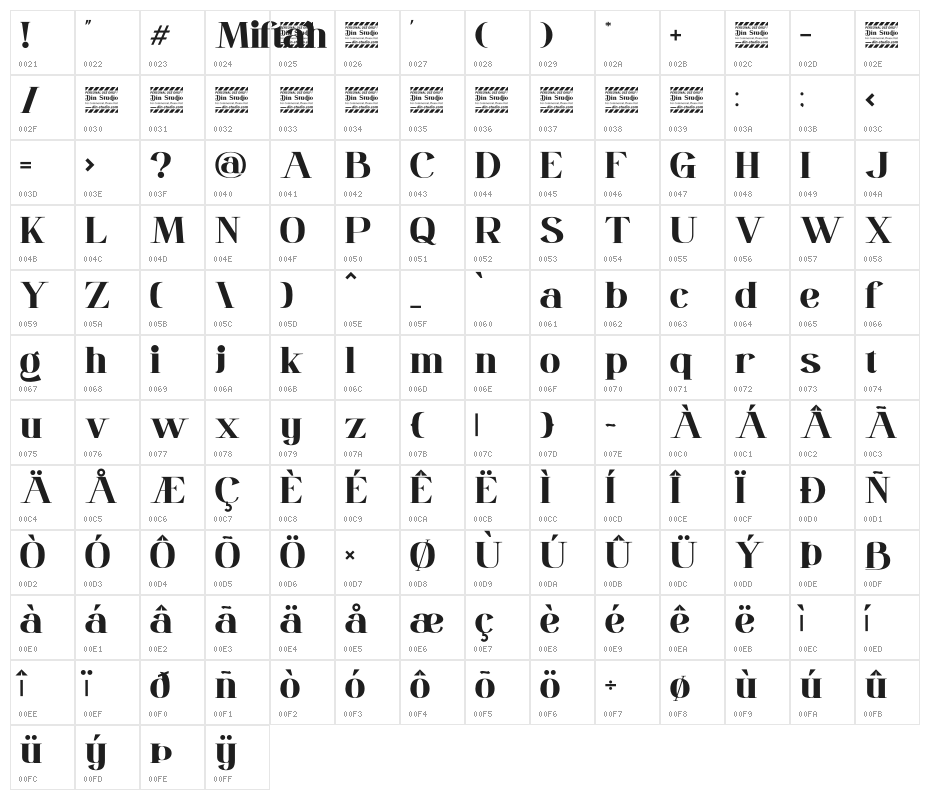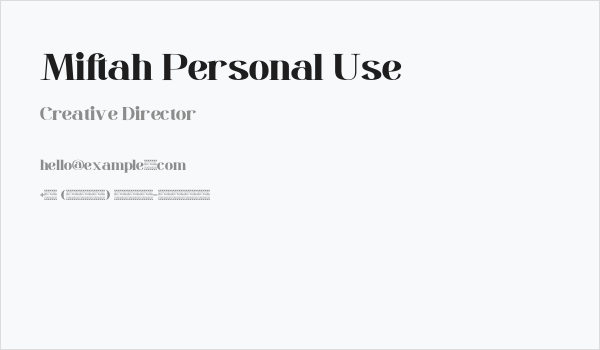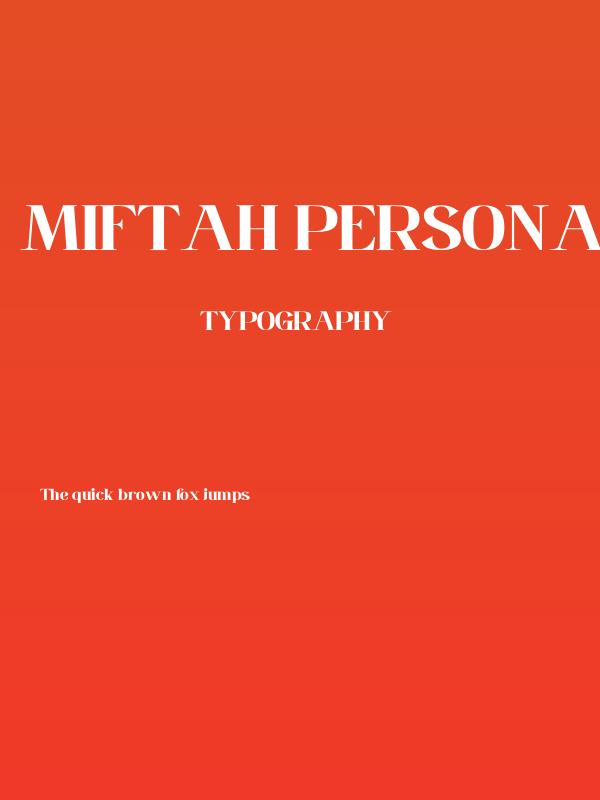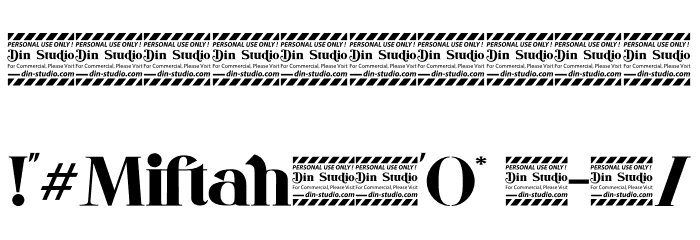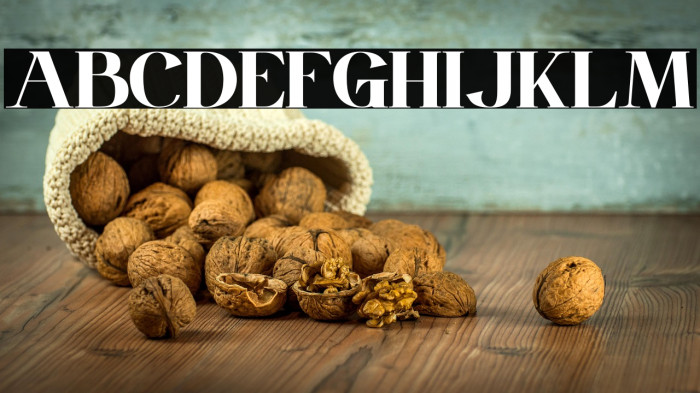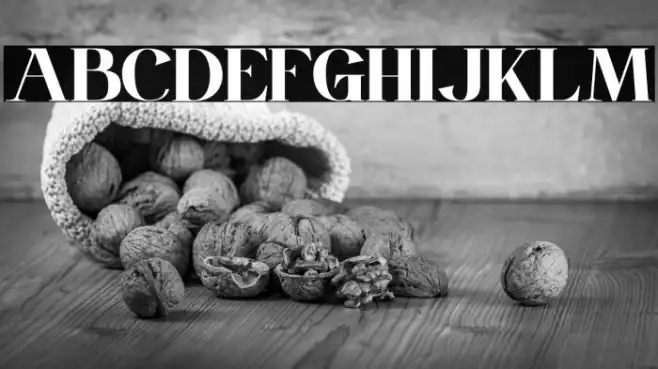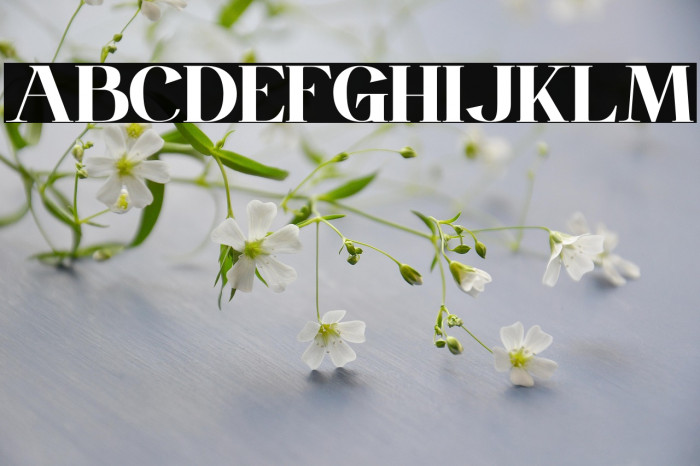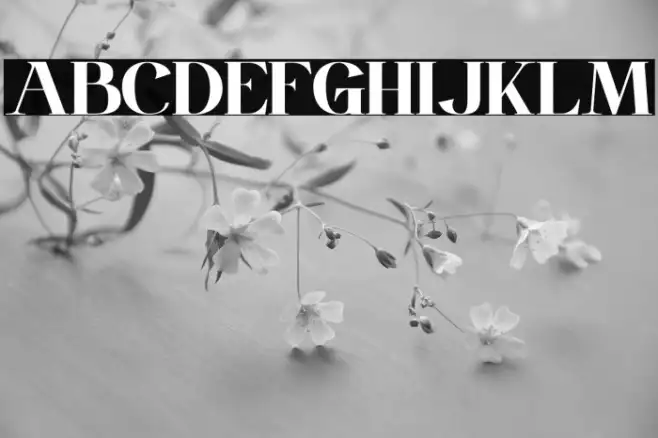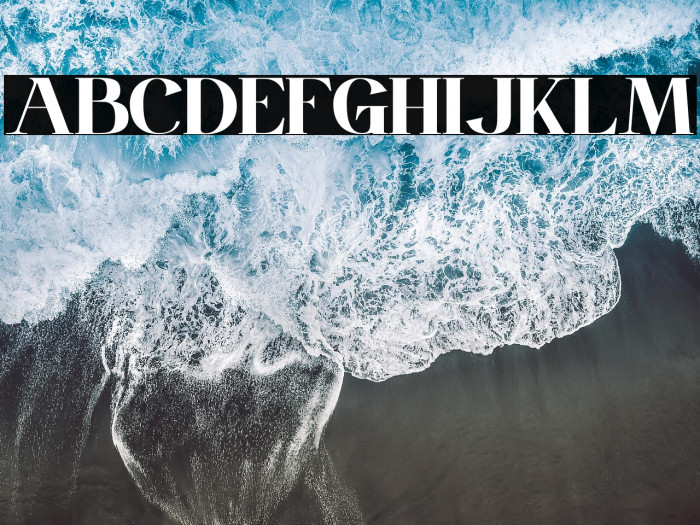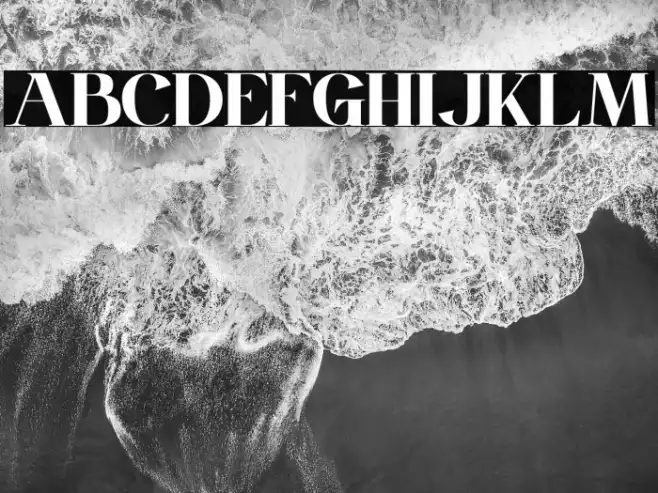
Miftah Personal Use Font
Miftah Personal Use Description
This font features a bold and striking design with high contrast between thick and thin strokes, giving it a dramatic and elegant appearance. The uppercase letters are particularly prominent, with sharp serifs and a slightly condensed form that adds to their commanding presence. The lowercase letters maintain a consistent style, with rounded forms and distinctive curves that enhance readability. The numerals are well-proportioned, matching the overall aesthetic of the alphabet. Special characters are included, maintaining the same bold and stylish design. This font is ideal for making a strong visual impact.
| Proposed Projects | Ideal for branding, headlines, posters, and any project requiring a strong visual impact. |